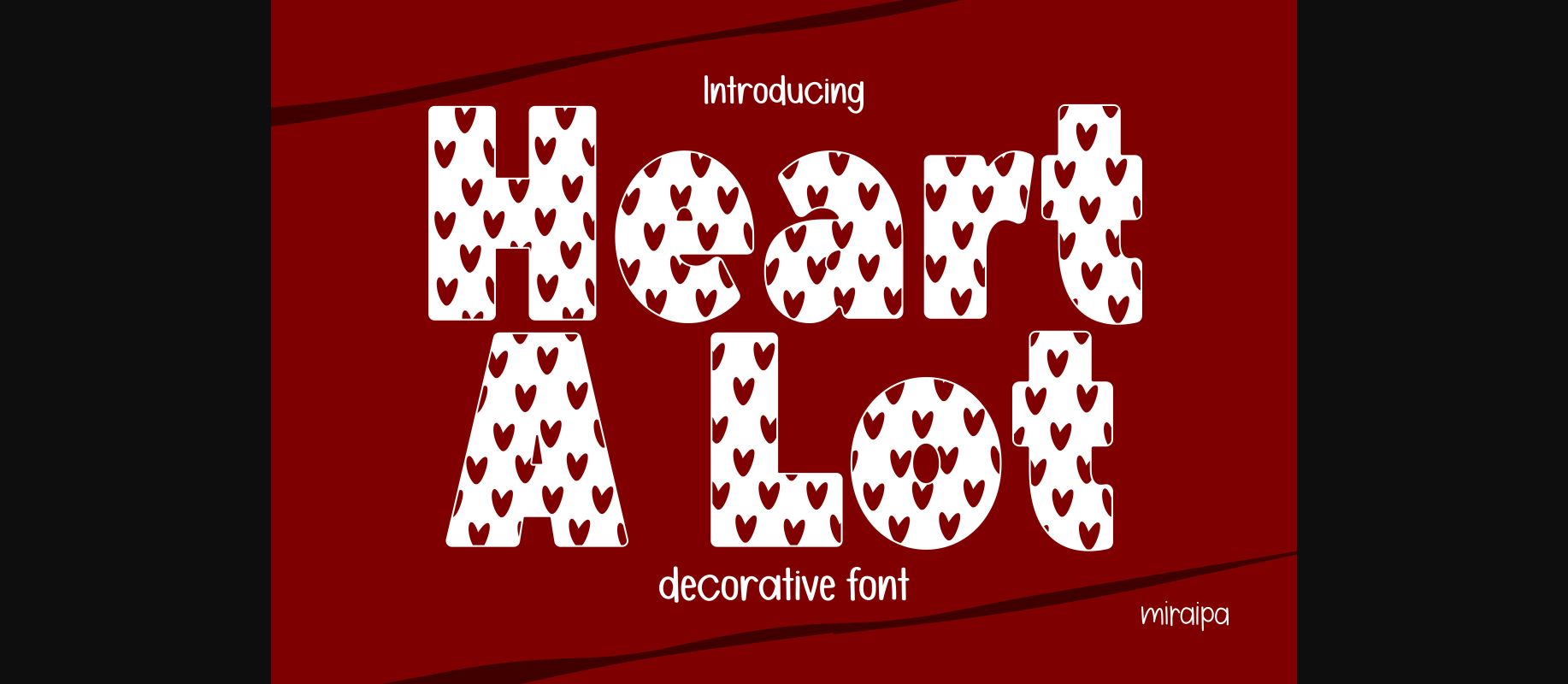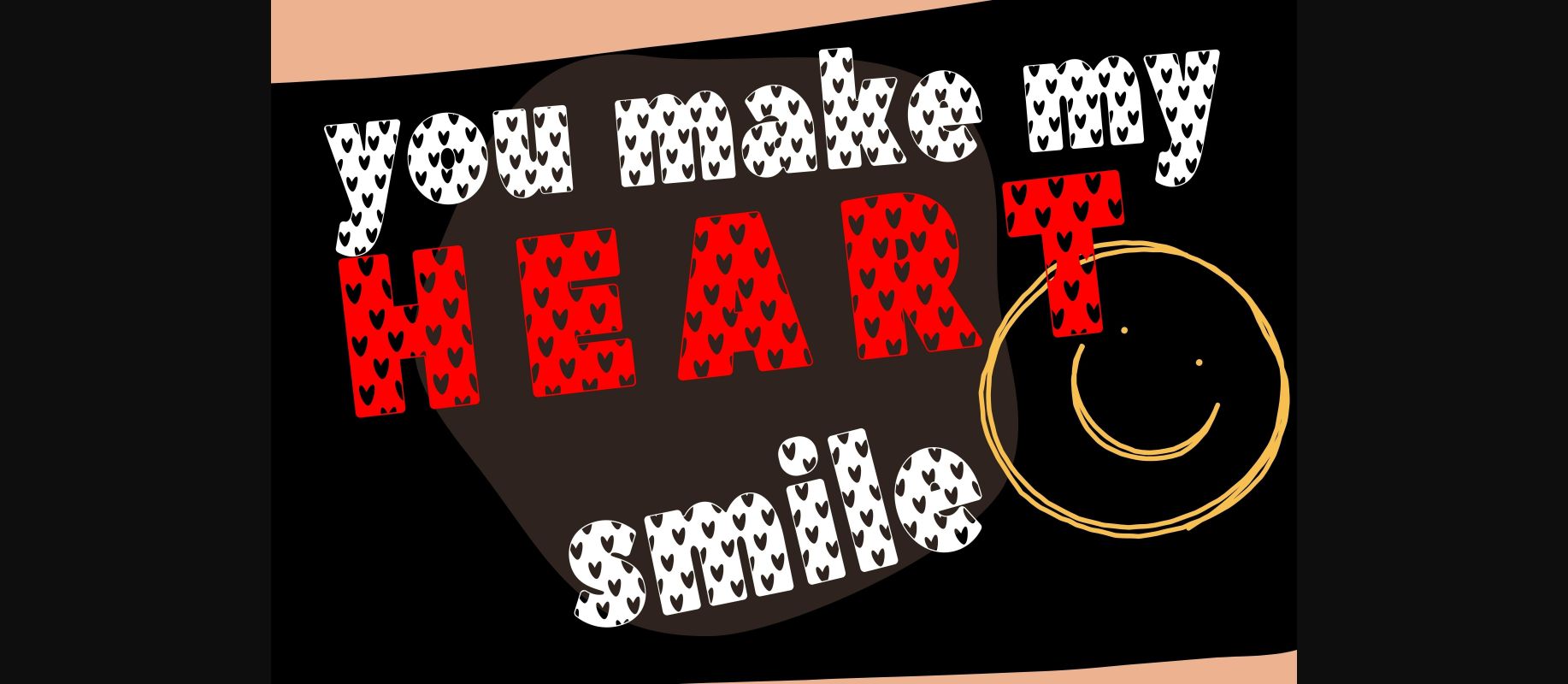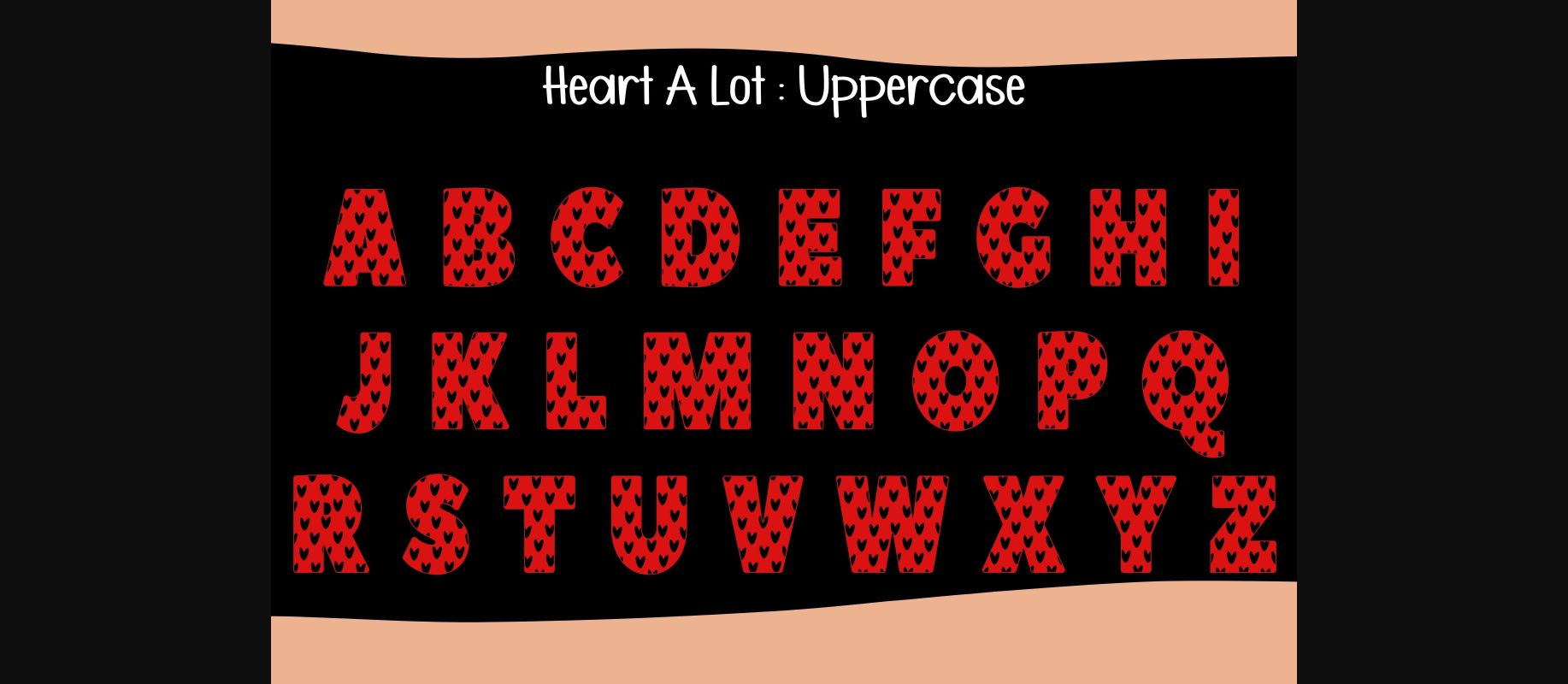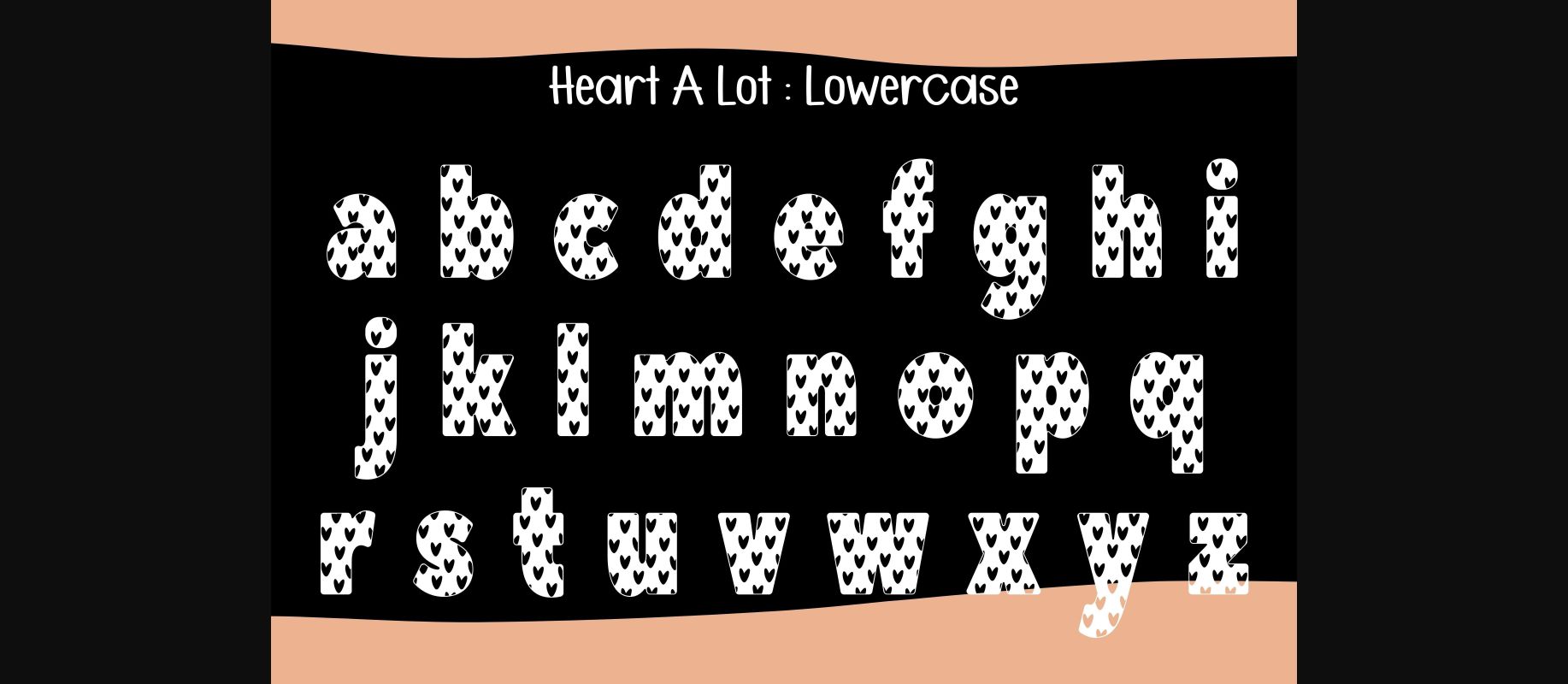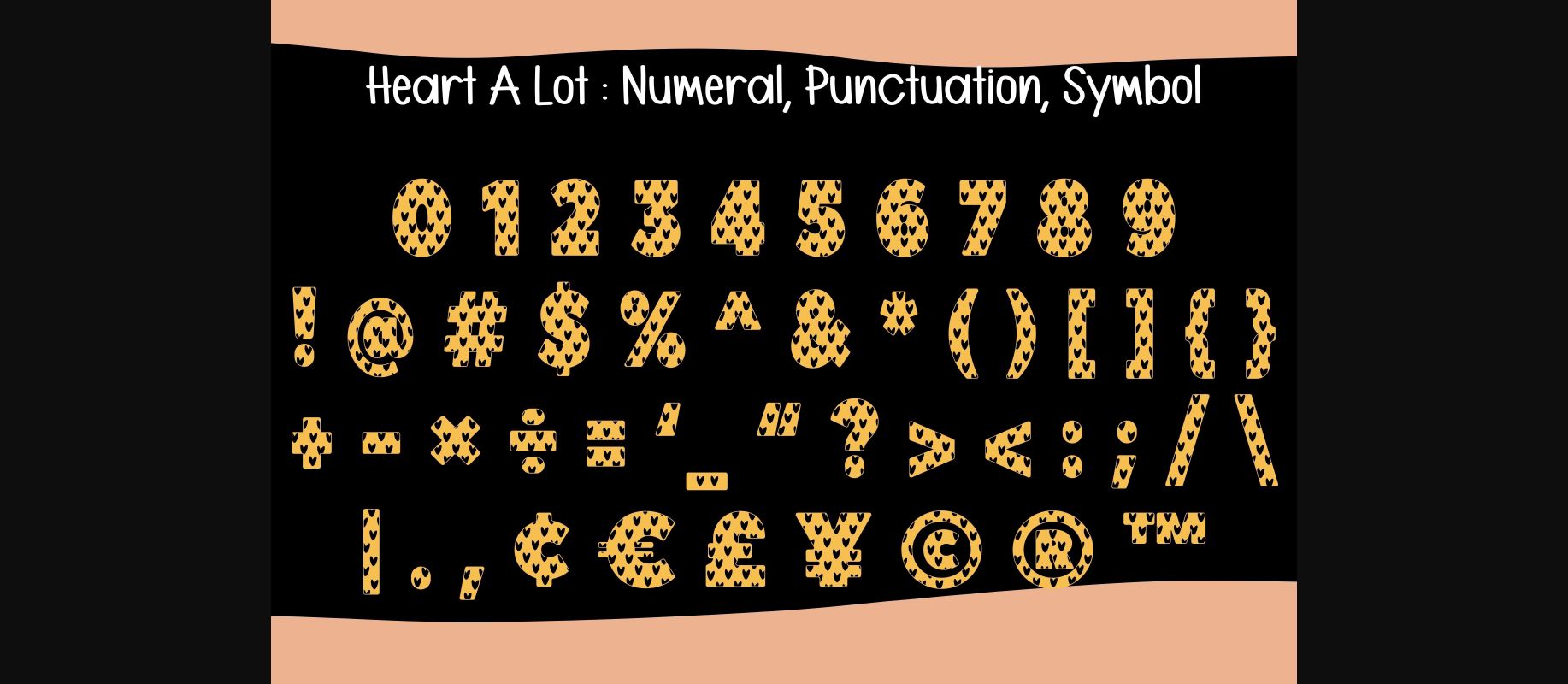
About Heart a Lot Font
Heart A Lot is a cute and adorable decorative font. Its natural and unique style makes it incredibly fitting to a large pool of designs. The only limit is your imagination!